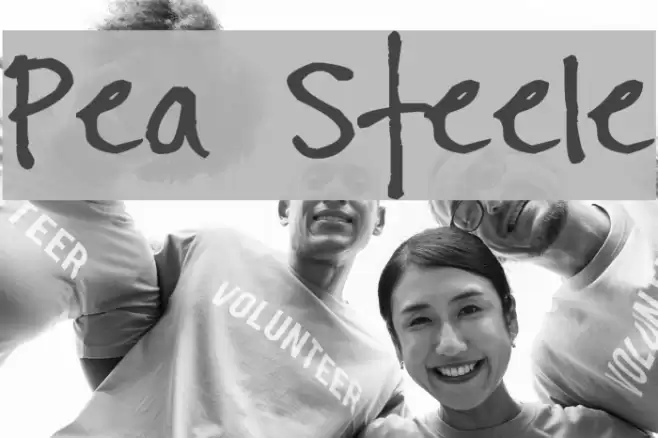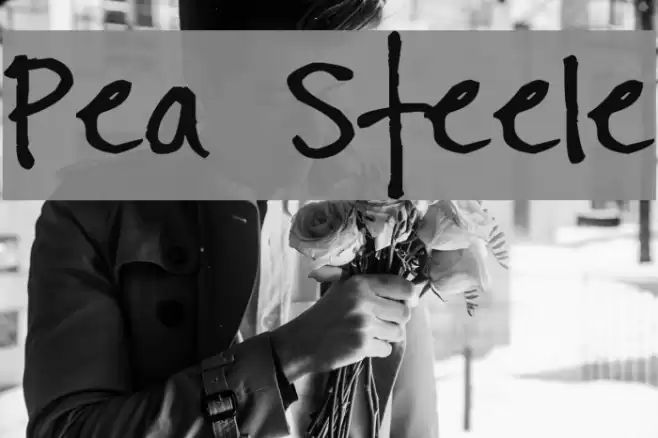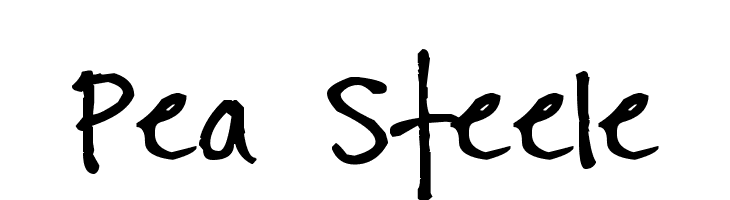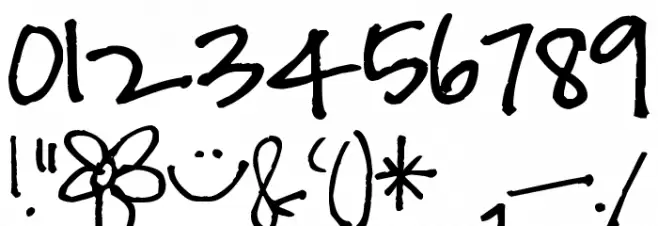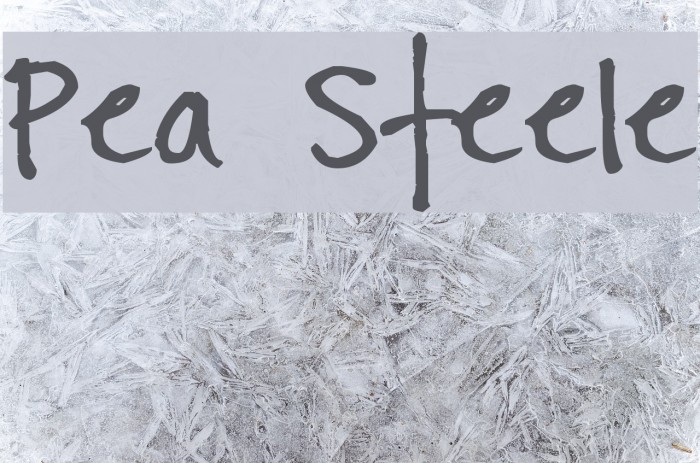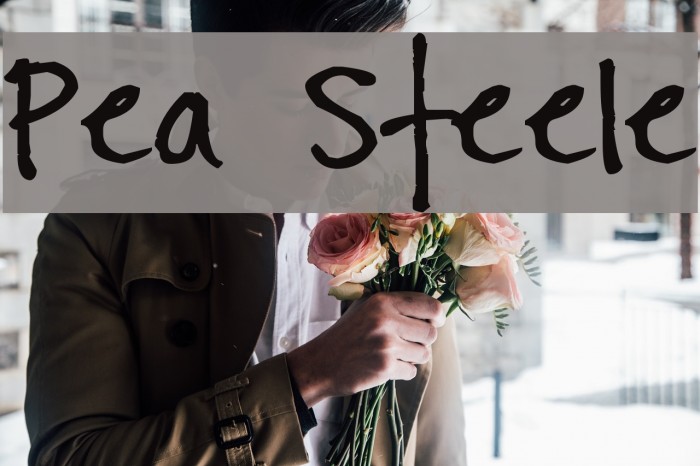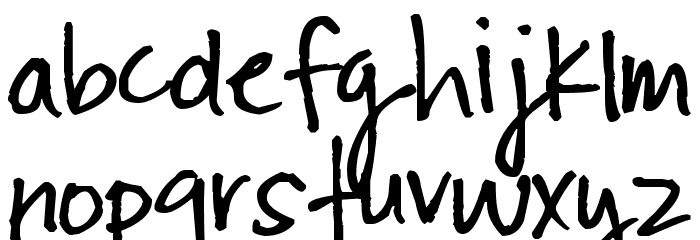
Pea Steele Font
Pea Steele Description
This font exudes a playful and casual handwritten style, characterized by its irregular strokes and informal appearance. The letters are slightly slanted, giving it a dynamic and lively feel. The uppercase and lowercase letters are distinct, with a noticeable difference in size, enhancing its handwritten charm. The numbers and special characters maintain the same playful aesthetic, making it versatile for various creative projects. The font's overall appearance is approachable and friendly, ideal for conveying a personal touch.
A playful, casual handwritten font with irregular strokes and a lively feel from Uncategorized fonts.
- Proposed Projects: Ideal for greeting cards, personal notes, children's books, and creative branding projects.
- Overall Style: Casual, Playful
- Use Case: Headlines, Informal text, Creative projects